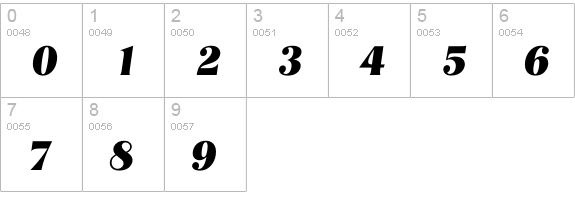
Inashville Bold is a strong, high-contrast variant in the Inashville typeface family \xE2\x80\x94 well suited to headlines, attention-grabbing titles, and strong calls-to-action.
Inashville Bold font is a stunning display typeface that exudes confidence and boldness. With its strong and distinct letterforms, this font is perfect for making a statement and capturing attention. The Inashville Bold font is characterized by its thick and powerful strokes, creating a commanding presence on any design project. Whether it's for headlines, branding materials, posters, or any other creative endeavor, this font will add a touch of strength and impact. What sets Inashville Bold font apart is that it is not only visually striking but also freely available to download at FontsMarket.com. This means that designers, creatives, and typography enthusiasts can easily access this remarkable font without any cost. The versatility of Inashville Bold font allows it to be used in a variety of design styles, from modern and edgy to classic and elegant. Its clean lines and sharp edges make it highly legible, ensuring that your message is delivered with clarity and impact. Whether you're looking to make a powerful statement or add a touch of sophistication to your designs, Inashville Bold font is the perfect choice. Download it for free at FontsMarket.com and unleash the boldness and creativity within you.